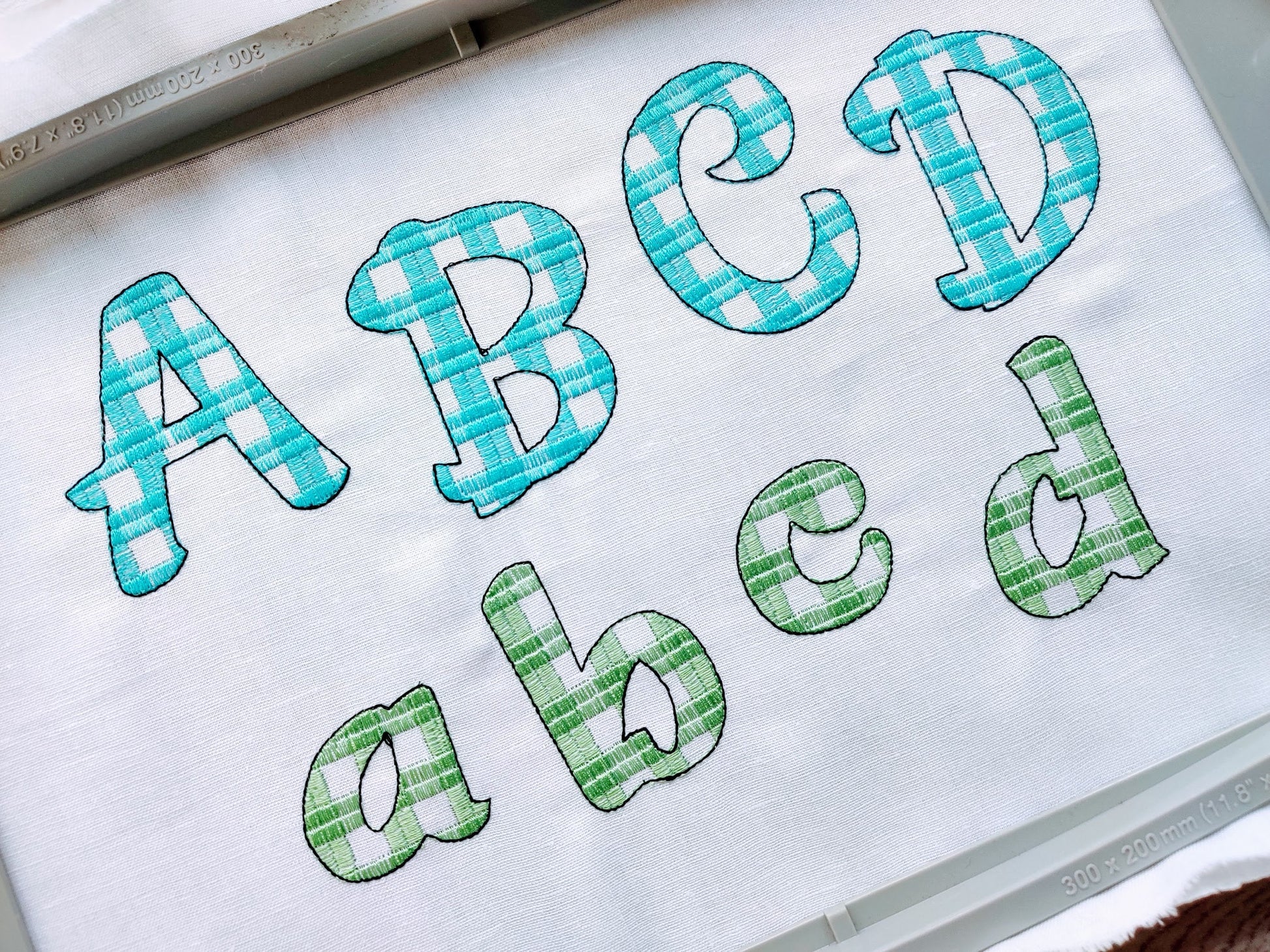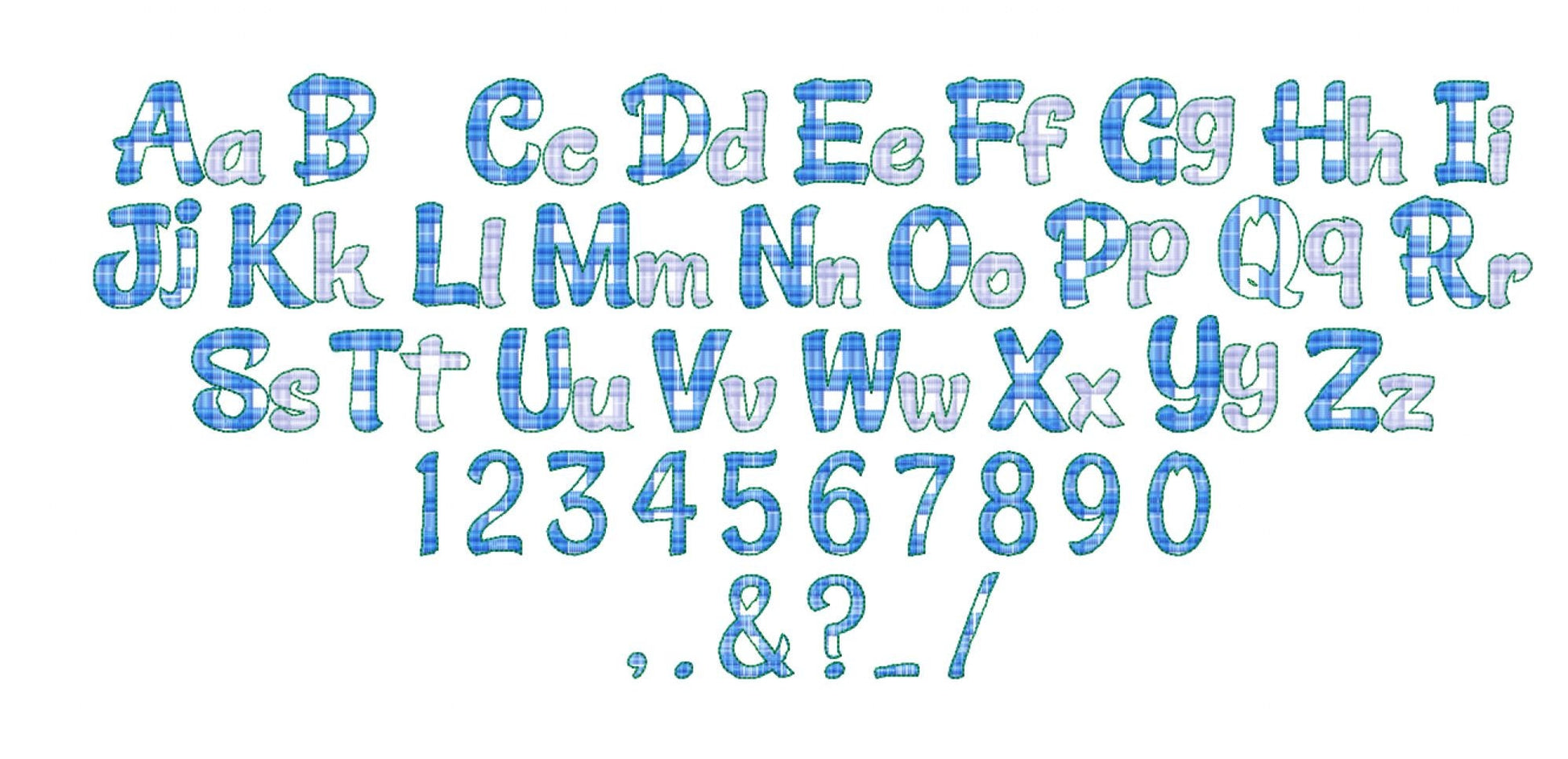
Tartan Plaid Fun Font
A fun tartan plaid font in very light sketch stitching; the gingham lines are part of the letters and the fabric shows through. Cozy for pillows, stockings, shirts and names.
• Light stitch tartan plaid font